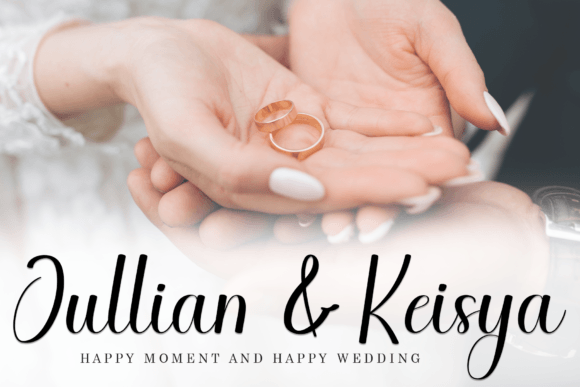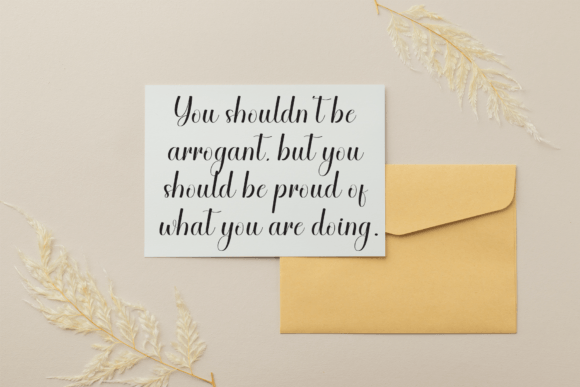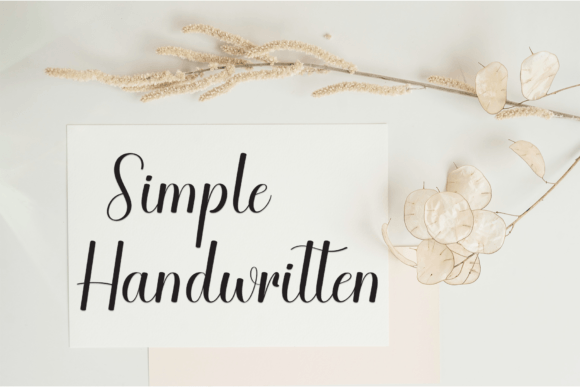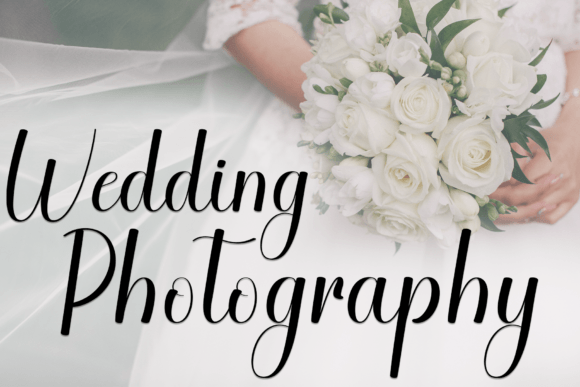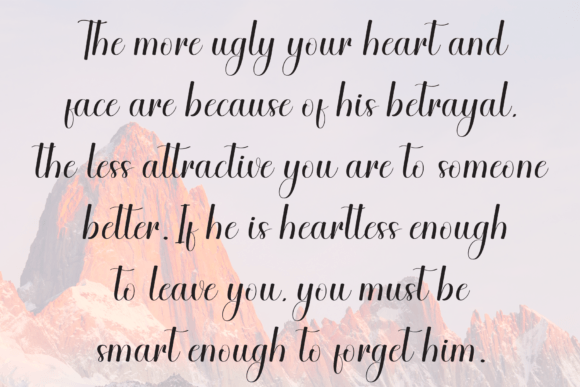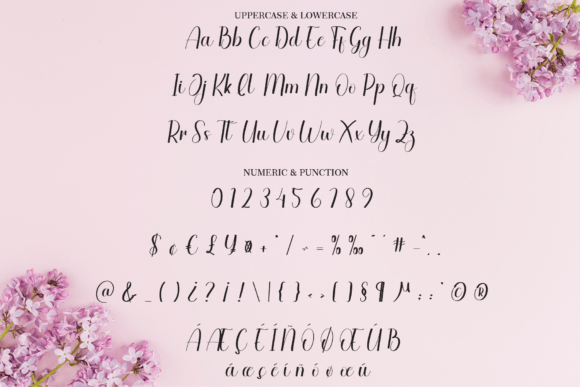
The Perfect Touch: Discovering the Charming Font
Do you ever find yourself staring at a blank canvas, searching for the perfect font to bring your design to life? It’s a moment we’ve all experienced – the blank page staring back, waiting for that spark of inspiration. For designers, this moment can be both thrilling and daunting. But what if I told you that there’s a font that’s sure to put a smile on your face and make your design dreams a reality?
Meet the Charming Font, a sweet and friendly handwritten font that’s perfect for adding a touch of warmth and personality to your designs. Whether you’re crafting wedding invitations, creating cards, or working on any other project that needs a lovely touch, the Charming Font is an ideal choice. Its fresh and casual vibe makes it a valuable asset for designers looking to add a personal and inviting feel to their work.
Key Features of Charming Font
- Font Styles: Charming Font comes in 6 different styles, including regular, bold, italic, bold italic, condensed, and condensed bold, offering a wide range of options for designers and typographers.
- Character Set: Charming Font includes a comprehensive character set, covering Latin, Cyrillic, and Greek alphabets, as well as a wide range of punctuation and symbols.
- Unique Characteristics: Charming Font features a unique, hand-crafted design with subtle flair and texture, adding a touch of elegance and sophistication to any design project.
Review: Charming Font
As a designer, I’ve had the chance to work with the Charming Font, and I must say it’s a unique and delightful addition to any project. ✨ Here are a few things that work well:
- Customizability: Charming Font offers a wide range of customization options, allowing designers to tailor the font to their specific needs.
- Legibility: Despite its ornate nature, the font is surprisingly legible, making it suitable for both body text and headings.
- Whimsical charm: The font’s playful, handwritten feel adds a touch of personality to any design project.
- Lack of standardization: The font’s irregularities can make it difficult to use in situations where consistency is key.
- Distractions: The font’s ornate nature can sometimes be distracting, especially when used in large blocks of text.
Overall, I think Charming Font is a great choice for designers looking to add some personality to their projects. While it may not be suitable for every situation, it’s definitely a unique and charming addition to any design arsenal.
To get the most out of the Charming Font, try combining it with other elegant fonts or using it in bold or italic styles. You can also experiment with different font sizes and colors to create a unique look.
The Charming Font is perfect for:
- Book covers and interior design.
- Special occasion cards and gifts.